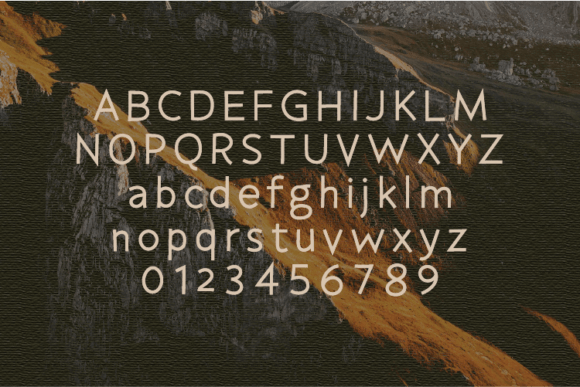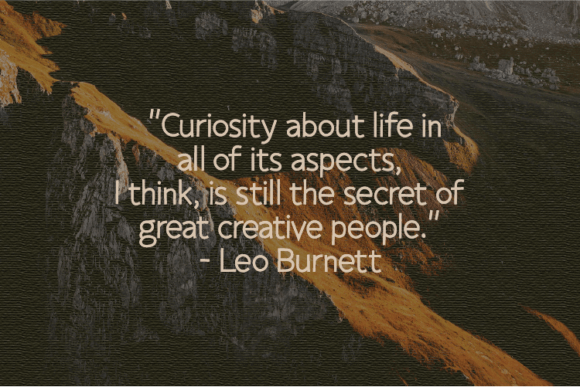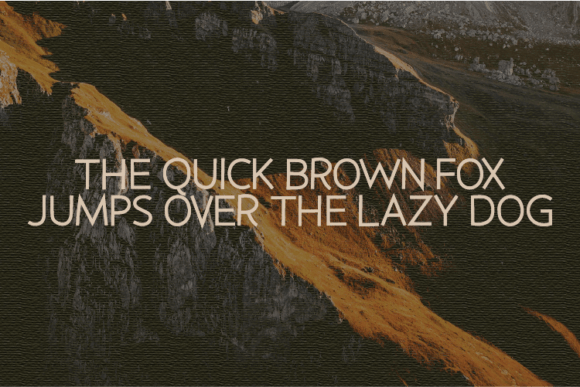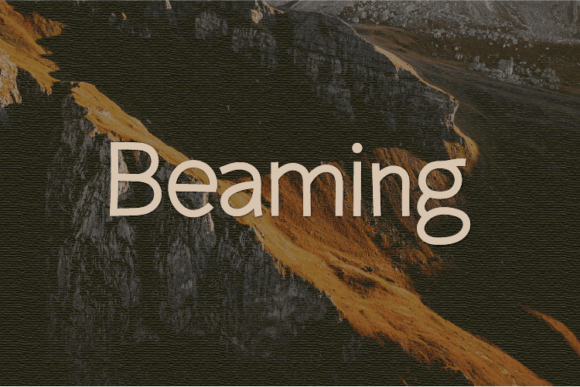
Introducing Beaming Font: The Unique Sans Serif for Creative Designs
In the world of typography, a new font has emerged that’s making waves among designers and crafters alike. Say hello to Beaming Font, a natural sans serif font that’s been crafted with precision and creativity. What sets Beaming apart is its distinctive approach to character design, where not a single node in each character’s indentation has been altered. This innovative technique makes Beaming a very interesting and unique font, perfect for a variety of design applications.
The Story Behind Beaming Font
Beaming Font is the result of a meticulous design process that aimed to create a font that’s both simple and distinctive. By preserving the original indentation of each character, the designer has achieved a remarkable level of authenticity and naturalness. This approach not only gives Beaming its unique charm but also makes it incredibly versatile. Whether you’re working on a quote, note, t-shirt design, or any product design, Beaming Font is sure to bring a touch of elegance and sophistication.
Key Features of Beaming Font
- Natural Sans Serif: Beaming Font boasts a clean and natural sans serif design that’s perfect for modern and minimalist aesthetics.
- Unique Character Indentation: The font’s distinctive feature is that not a single node in each character’s indentation has been changed, giving it an authentic and organic feel.
- High Versatility: Beaming Font is suitable for a wide range of design applications, from quotes and notes to t-shirts and product design.
- Ease of Use: The font is easy to read and works well in various sizes, making it perfect for both digital and print designs.
Beaming Font is a dream come true for designers and crafters looking for a unique and versatile font to elevate their work. Here are some ways you can use Beaming Font to take your designs to the next level:
- Quotes and Notes: Add a touch of elegance to your quotes and notes with Beaming Font’s clean and natural design.
- T-Shirt Designs: Create stunning t-shirt designs that stand out from the crowd with Beaming Font’s unique character indentation.
- Product Design: Use Beaming Font to add a professional touch to your product designs, from packaging to branding materials.
- Digital Designs: Beaming Font works beautifully in digital designs, including social media graphics, blog posts, and website headers.
Tips for Using Beaming Font
To get the most out of Beaming Font, here are some tips to keep in mind:
- Experiment with Sizes: Beaming Font works well in various sizes, so don’t be afraid to experiment to find the perfect fit for your design.
- Pair with Other Fonts: Try pairing Beaming Font with other fonts to create a unique and visually appealing combination.
- Use in Combination with Images: Beaming Font looks great when used in combination with images, so consider adding it to your graphics and designs.
In conclusion, Beaming Font is a game-changer for designers and crafters looking for a unique and versatile sans serif font. Its natural design, unique character indentation, and high versatility make it perfect for a wide range of design applications. Whether you’re working on a quote, note, t-shirt design, or product design, Beaming Font is sure to bring a touch of elegance and sophistication. So why not give Beaming Font a try and see how it can elevate your designs?